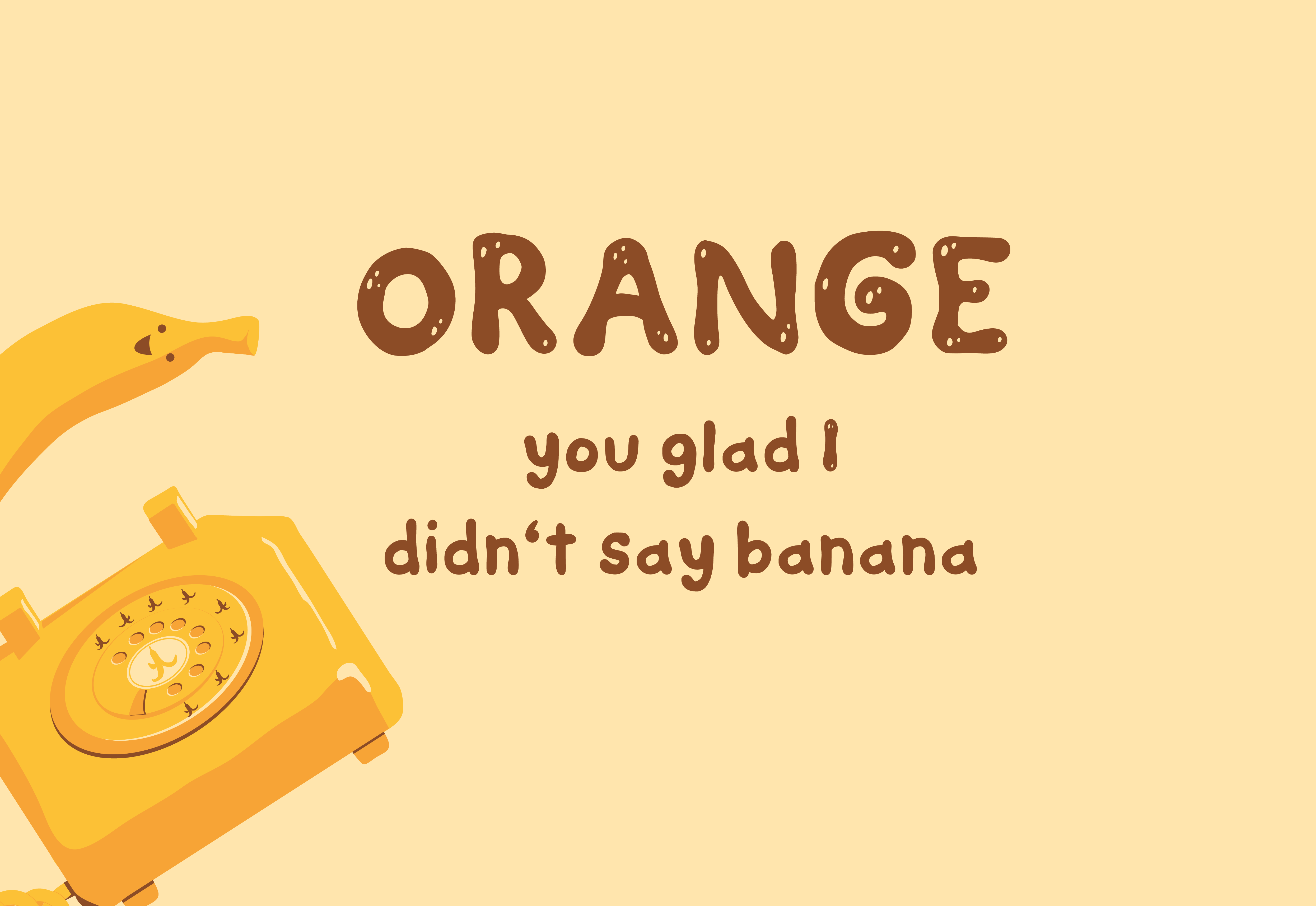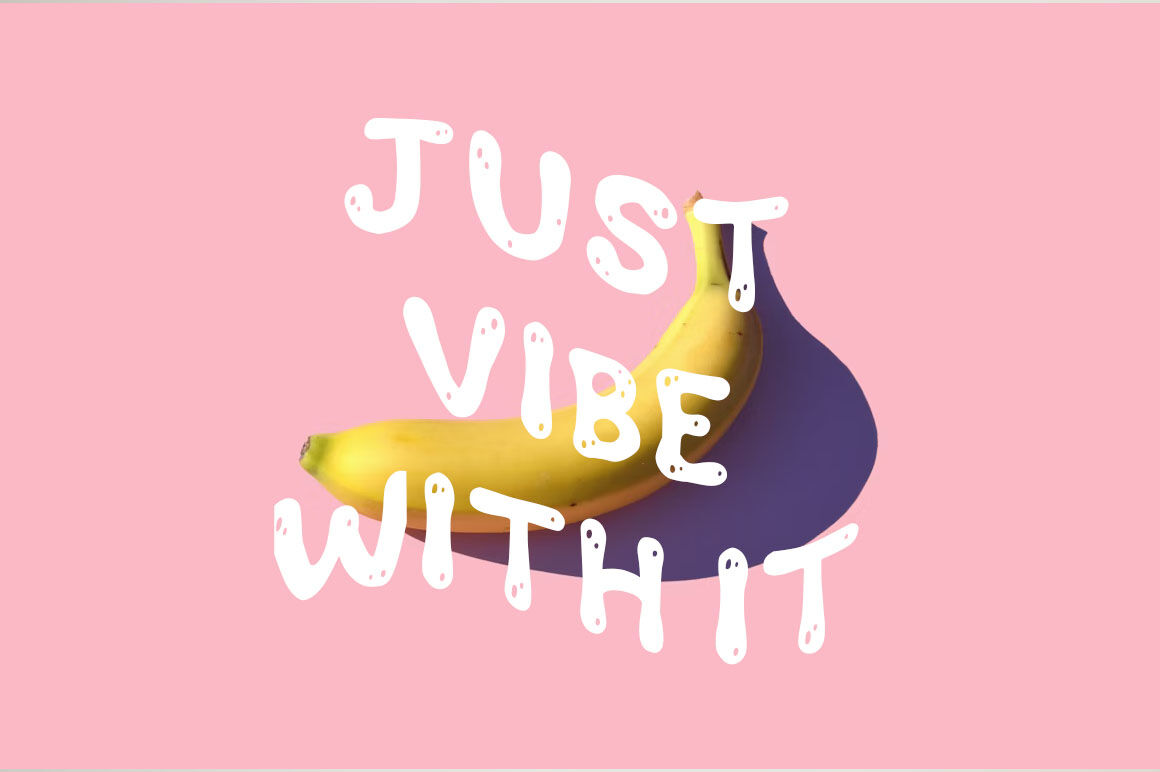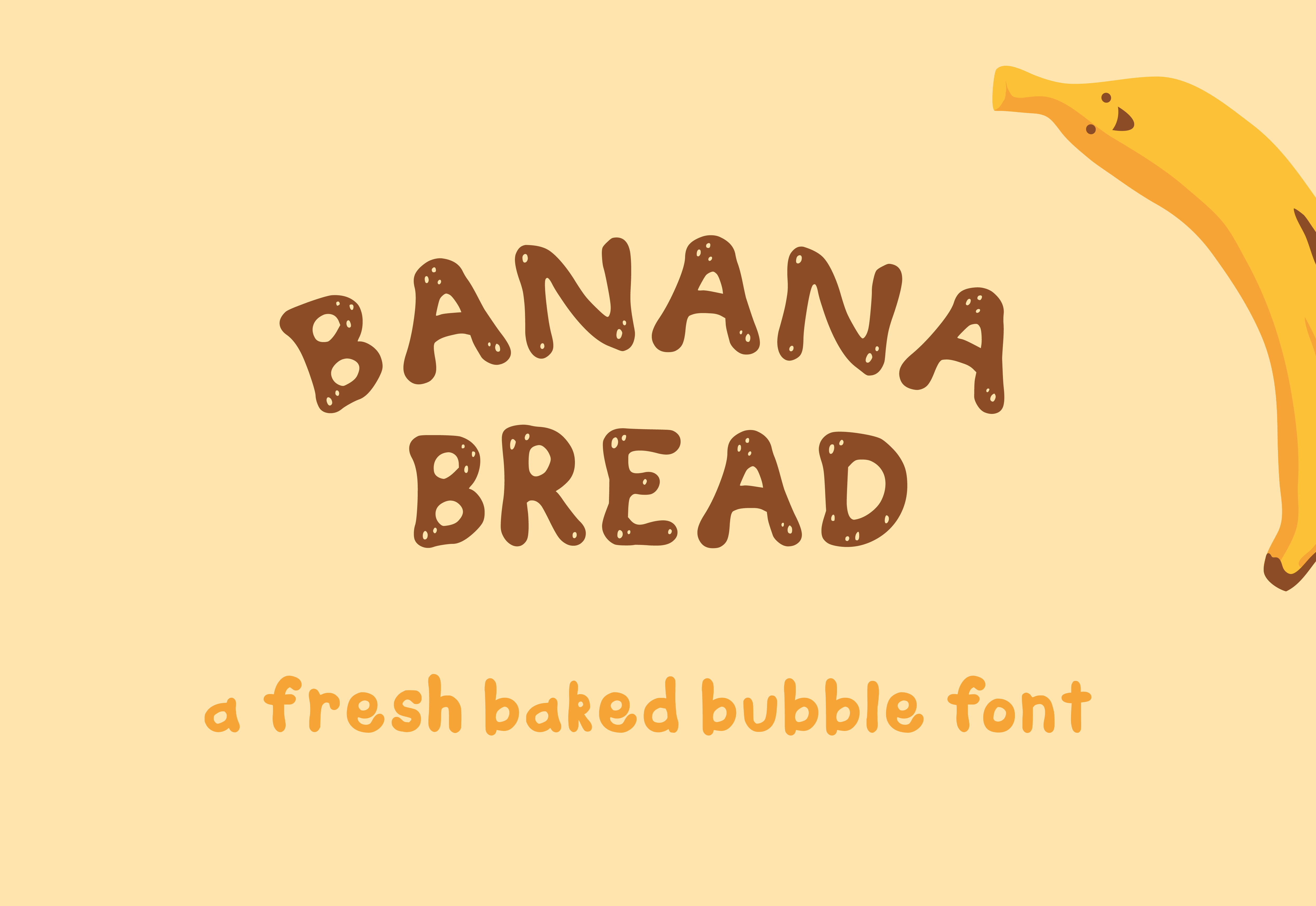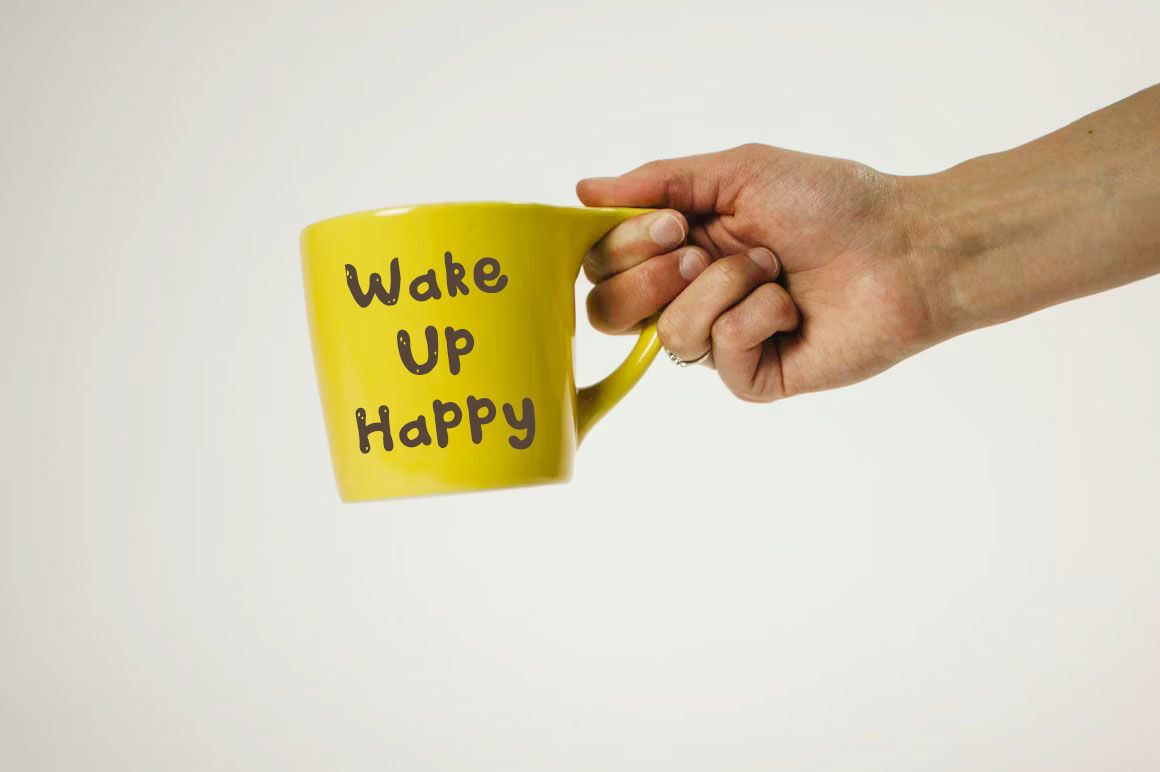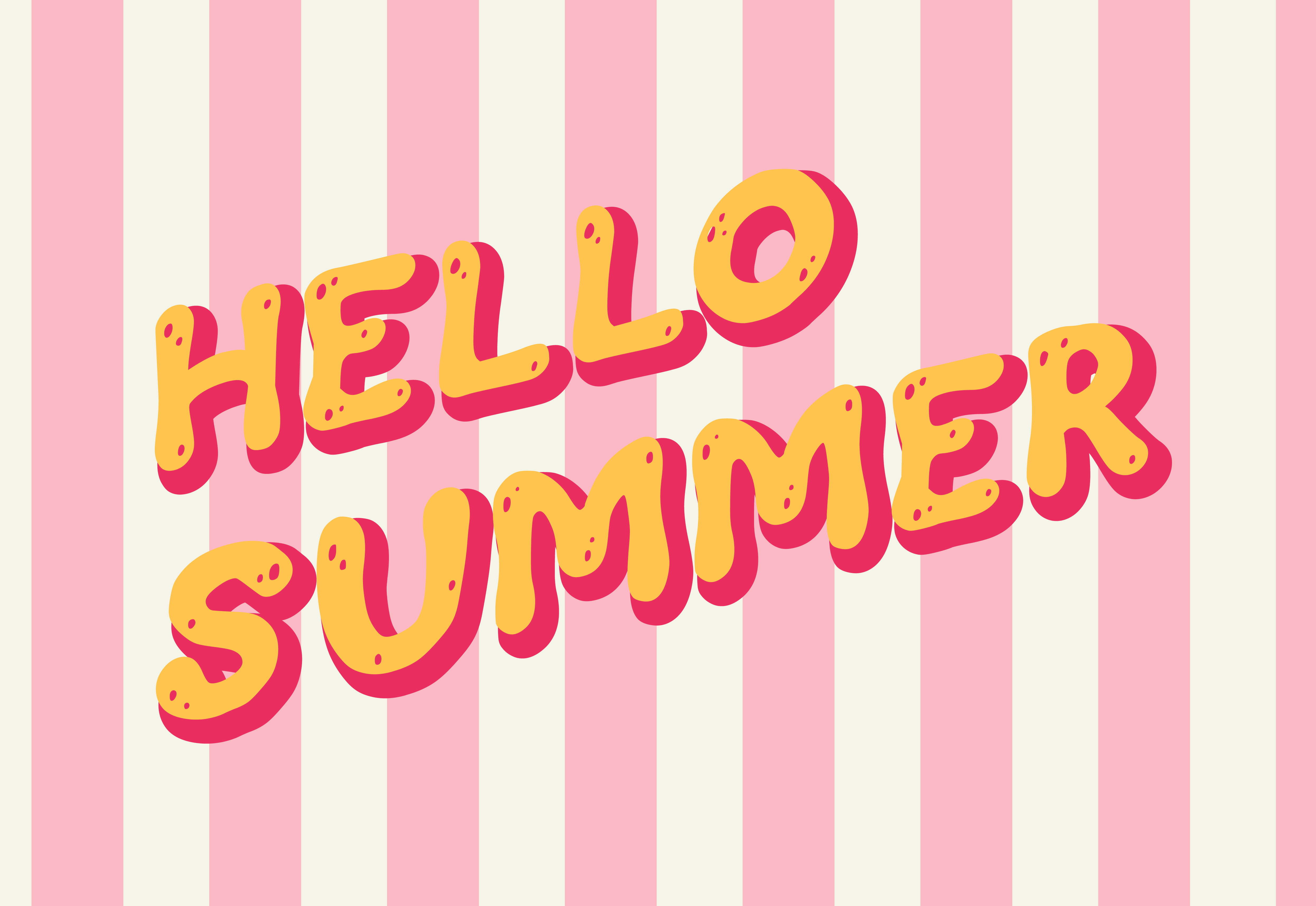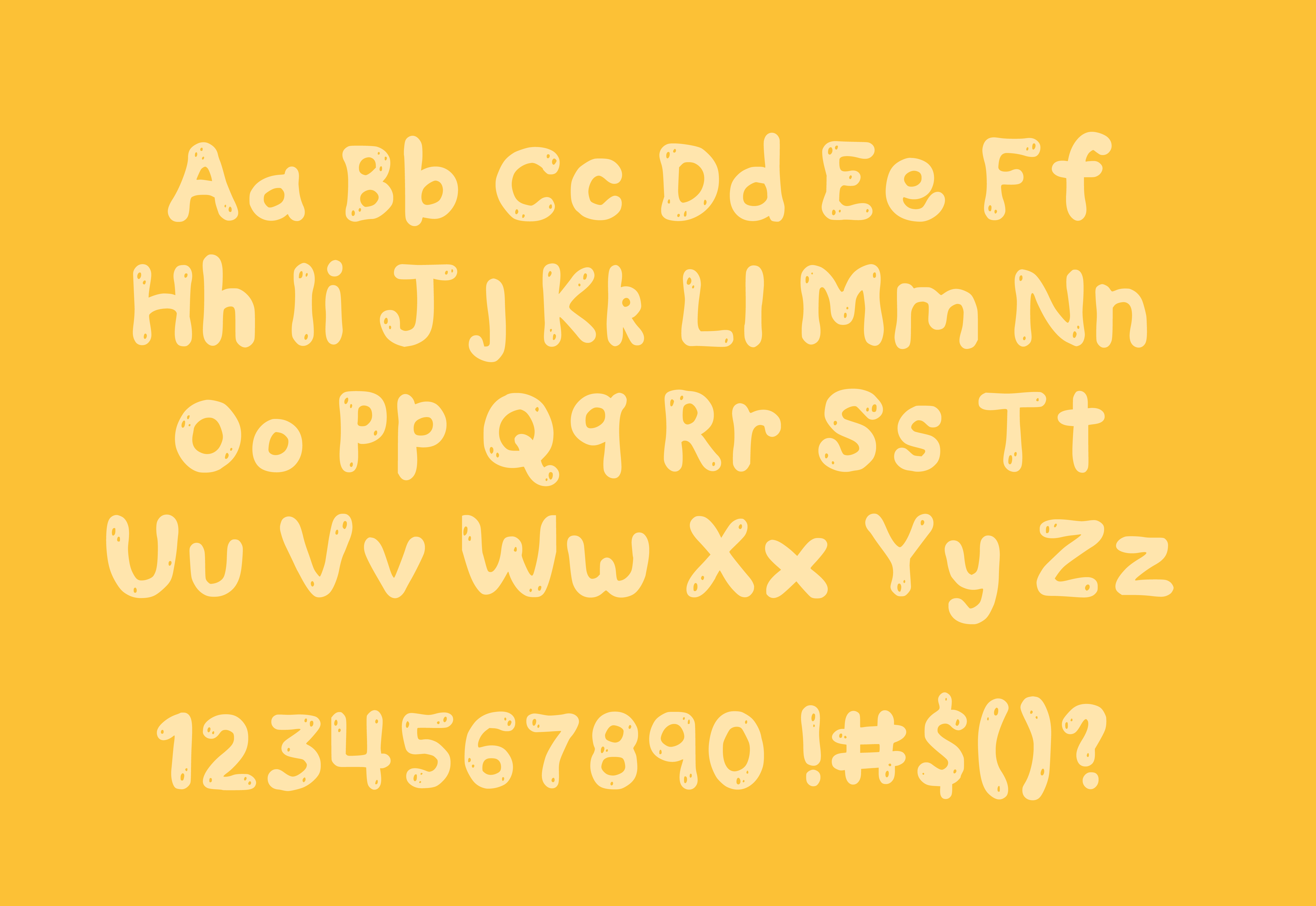
Banana Bread Bubble Font
Introducing Banana Bread! The fun and funky bubble font, handmade with love. Brighten up your projects with this playful typeface. Bold yet casual, Banana Bread features imperfect letters, speckled with stippling on the uppercase for that real hot-out-of-the-oven feel.  Banana Bread can be used for: Branding, Logos, Headlines, Packaging, Greeting Cards, Groan-worthy Dad Jokes ... whatever you can cook up! Includes upper and lowercase letters, numbers, and most used punctuation Bon Appetit!  Follow me on Instagram www.instagram.com/hellokendra